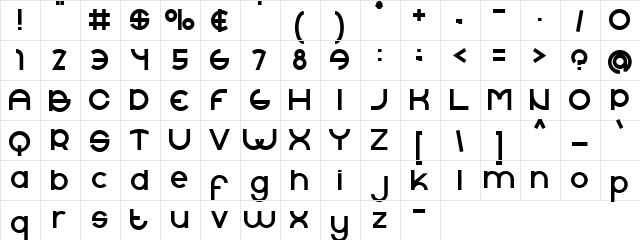
Eraox Regular Font Preview
Eraox Regular
Eraox Regular Font Details
| Designer | Jadatype |
Design Context for Eraox Typeface
Eraox offers clean, dependable letterforms without strong stylistic allegiance, making it a practical choice for designers who need flexibility.